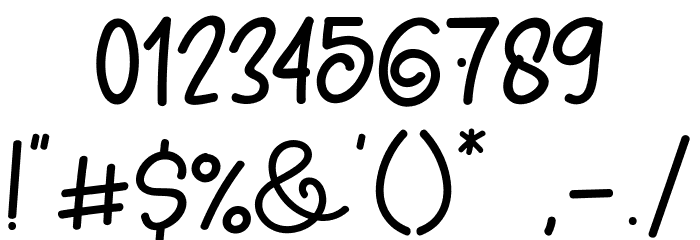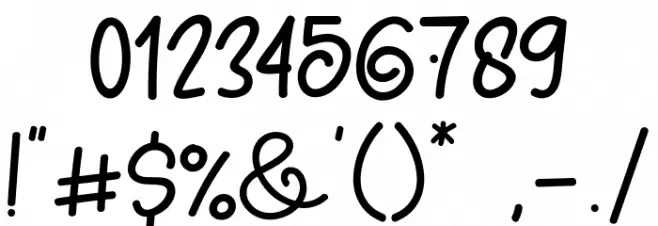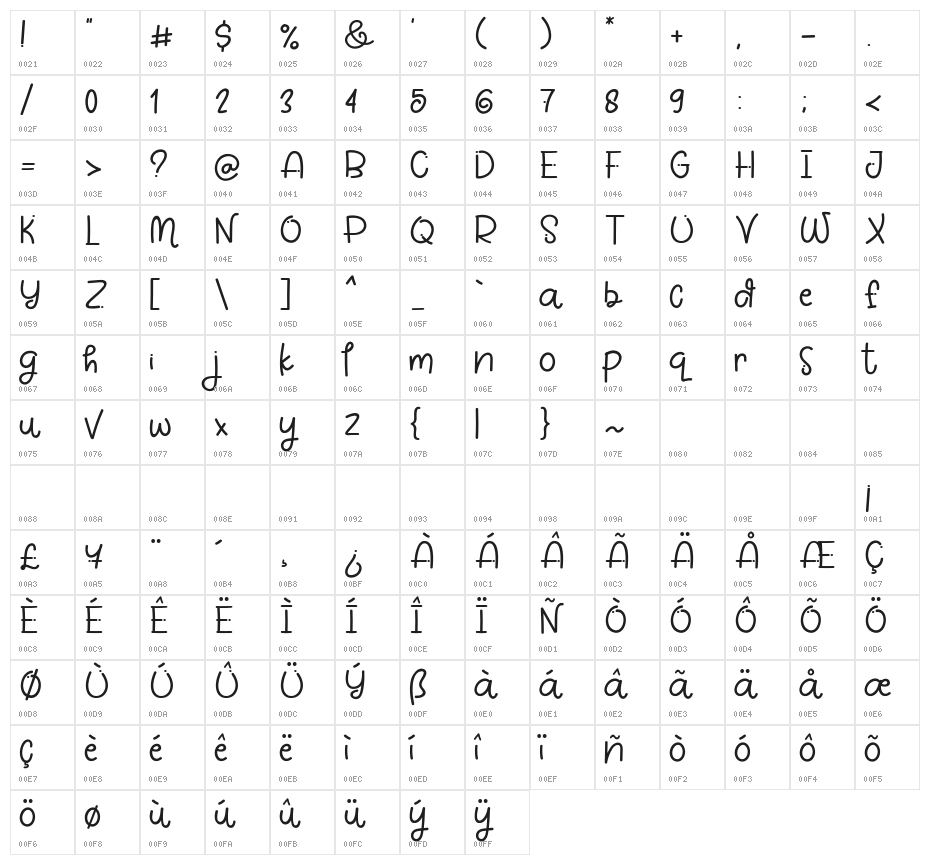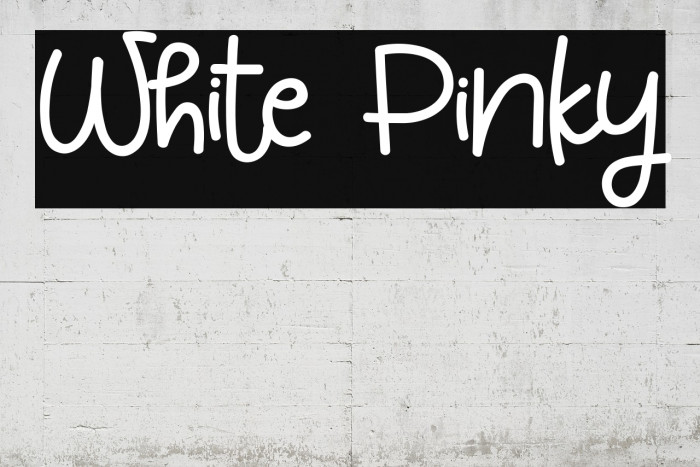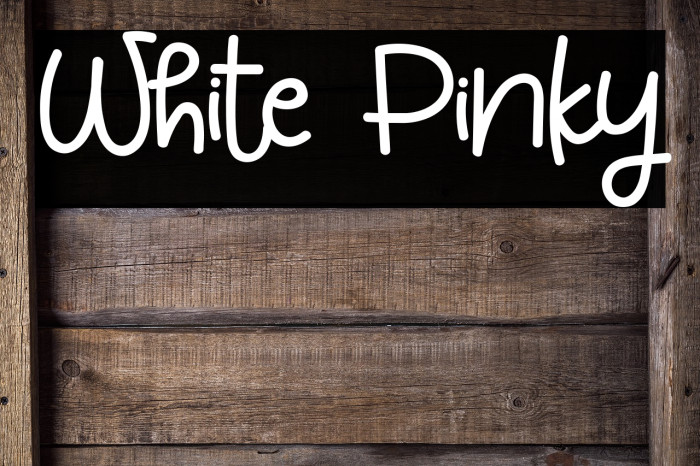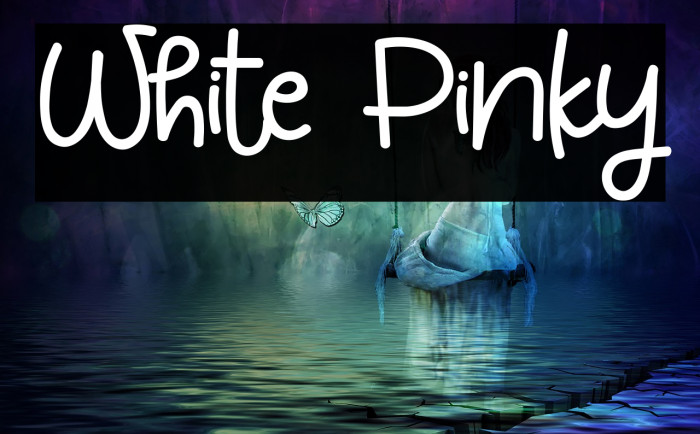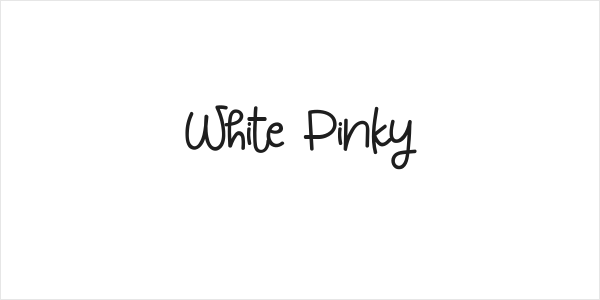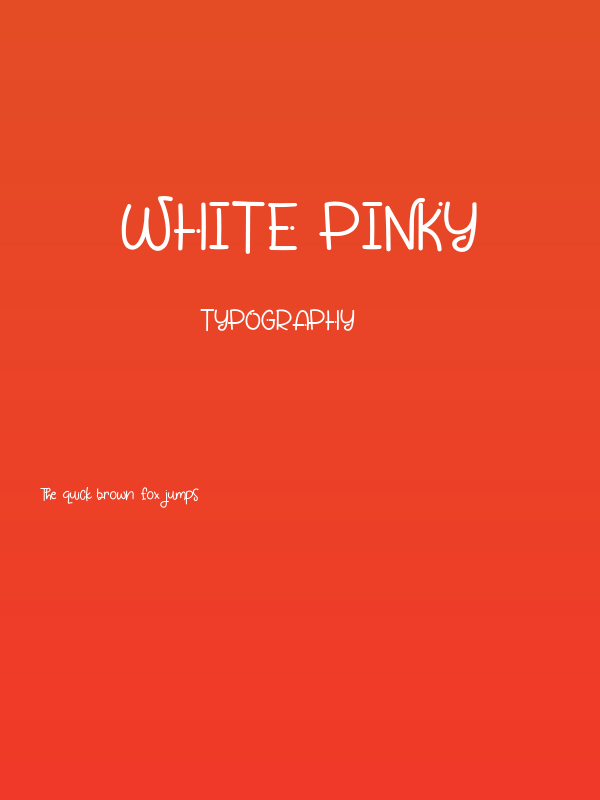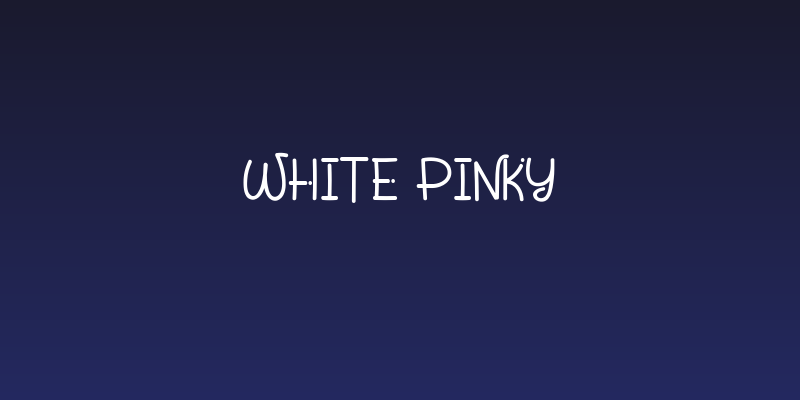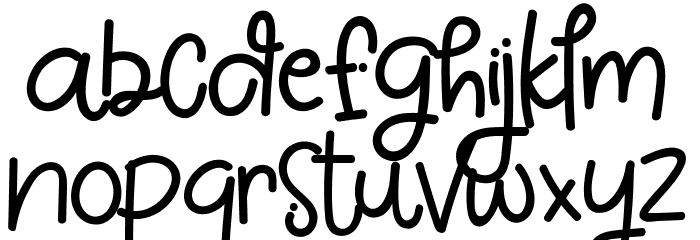
White Pinky Font
White Pinky Description
This playful and whimsical font features a handwritten style with a unique twist. Each character is crafted with a casual, flowing design that adds a touch of personality and charm. The letters are slightly rounded with a consistent stroke width, giving them a friendly and approachable feel. The uppercase and lowercase letters maintain a cohesive look, while the numerals and special characters complement the overall style. This font is perfect for projects that require a fun and informal touch, such as children's books, greeting cards, or playful branding. Its distinct appearance makes it stand out, while still being legible and versatile.
| Proposed Projects | Ideal for children's books, greeting cards, playful branding, and informal invitations. |